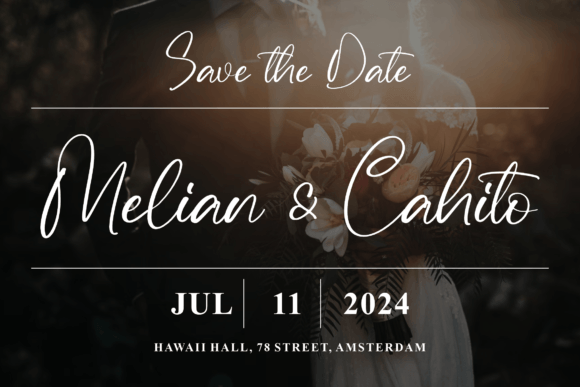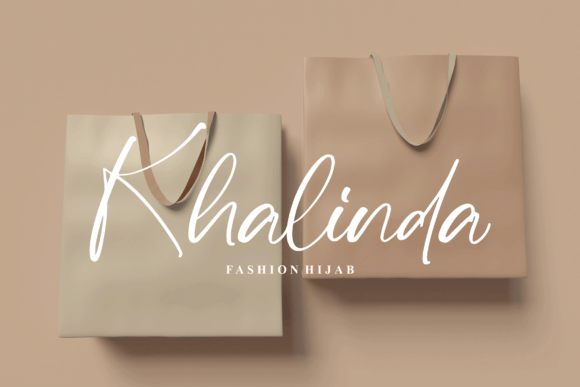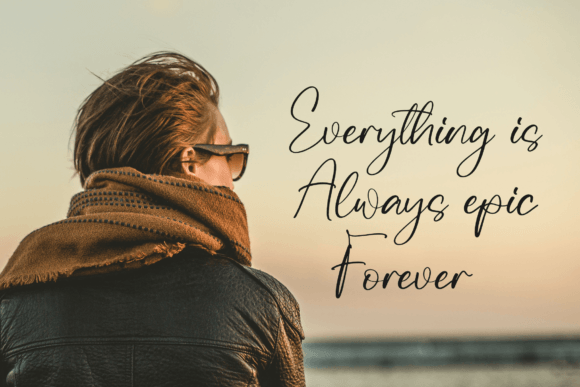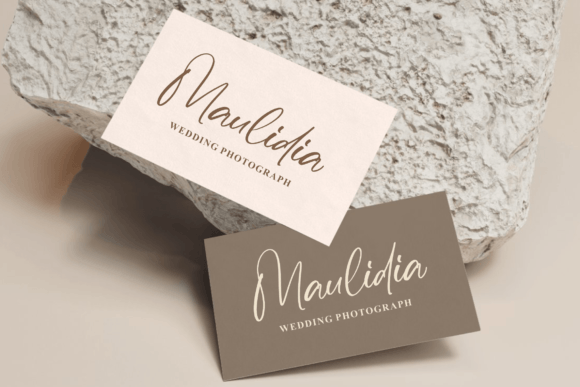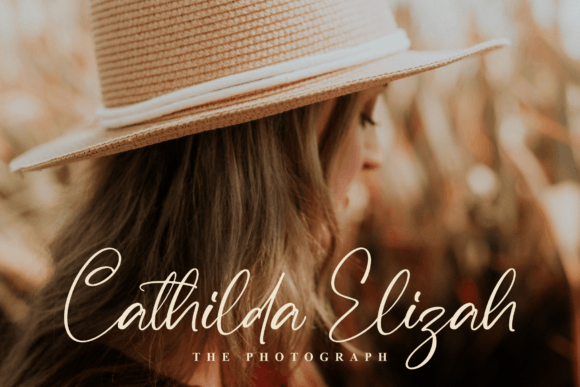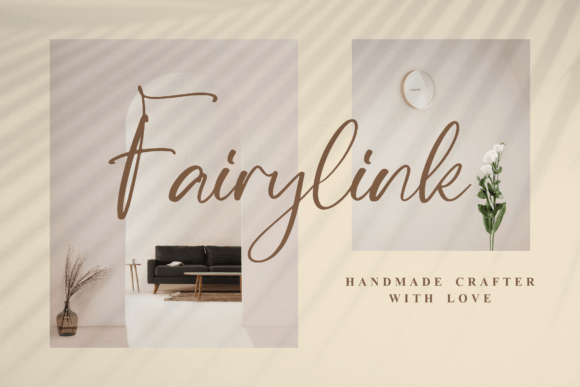
Introducing Garletta Font: Elevate Your Designs with Elegance
Are you a designer or crafter looking for a beautiful script font to add a touch of elegance to your projects? Look no further than Garletta Font! This stunning script font is perfect for a wide range of applications, from logos and branding projects to homeware designs, product packaging, and more.
What is Garletta Font?
Garletta Font is a gorgeous script font designed to bring a touch of sophistication and style to any project. Its beautiful, flowing script is perfect for adding a personal touch to your designs, making them stand out from the crowd. Whether you’re working on a logo, a poster, or a product label, Garletta Font is the perfect choice.
Why Choose Garletta Font?
So, why should you choose Garletta Font for your next project? Here are just a few reasons:
- Versatility: Garletta Font is suitable for a wide range of projects, from logos and branding projects to homeware designs, product packaging, and more.
- Elegance: This beautiful script font adds a touch of elegance and sophistication to any project, making it perfect for designers and crafters who want to create high-end designs.
What Projects is Garletta Font Suitable For?
Garletta Font is suitable for a wide range of projects, including:
- Logos: Create a stunning logo for your business or brand with Garletta Font.
- Branding Projects: Use Garletta Font to create a consistent brand identity across all your marketing materials.
- Homeware Designs: Add a touch of elegance to your homeware designs, such as kitchenware, bedding, and more.
- Product Packaging: Make your product packaging stand out with Garletta Font.
- Mugs: Create beautiful mug designs with Garletta Font.
- Quotes: Add a touch of elegance to your quote designs with Garletta Font.
- Posters: Create stunning poster designs with Garletta Font.
- Shopping Bags: Make your shopping bags stand out with Garletta Font.
- T-Shirts: Create beautiful t-shirt designs with Garletta Font.
- Book Covers: Add a touch of elegance to your book covers with Garletta Font.
- Name Cards: Create beautiful name cards with Garletta Font.
- Invitation Cards: Make your invitation cards stand out with Garletta Font.
- Greeting Cards: Create beautiful greeting cards with Garletta Font.
- Labels: Use Garletta Font to create beautiful labels for your products or gifts.
- Photography: Add a touch of elegance to your photography with Garletta Font.
- Watermark: Use Garletta Font to create a beautiful watermark for your photos.
Here are a few tips and tricks to help you get the most out of Garletta Font:
- Experiment with different sizes and colors: Garletta Font looks great in a variety of sizes and colors, so don’t be afraid to experiment and find the perfect combination for your project.
- Use it with other fonts: Garletta Font pairs well with other fonts, so try using it with a bold font or a sans-serif font to create a unique look.
- Add a personal touch: Use Garletta Font to add a personal touch to your designs, such as a handwritten note or a special message.